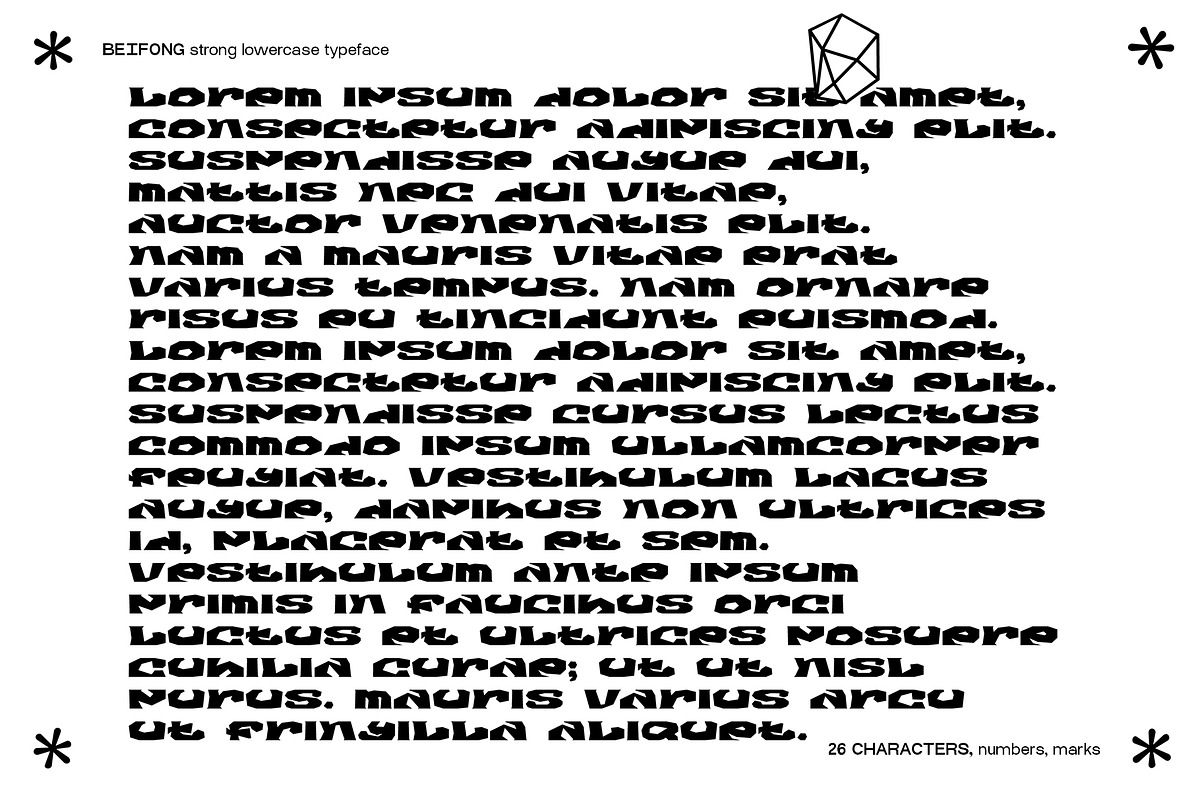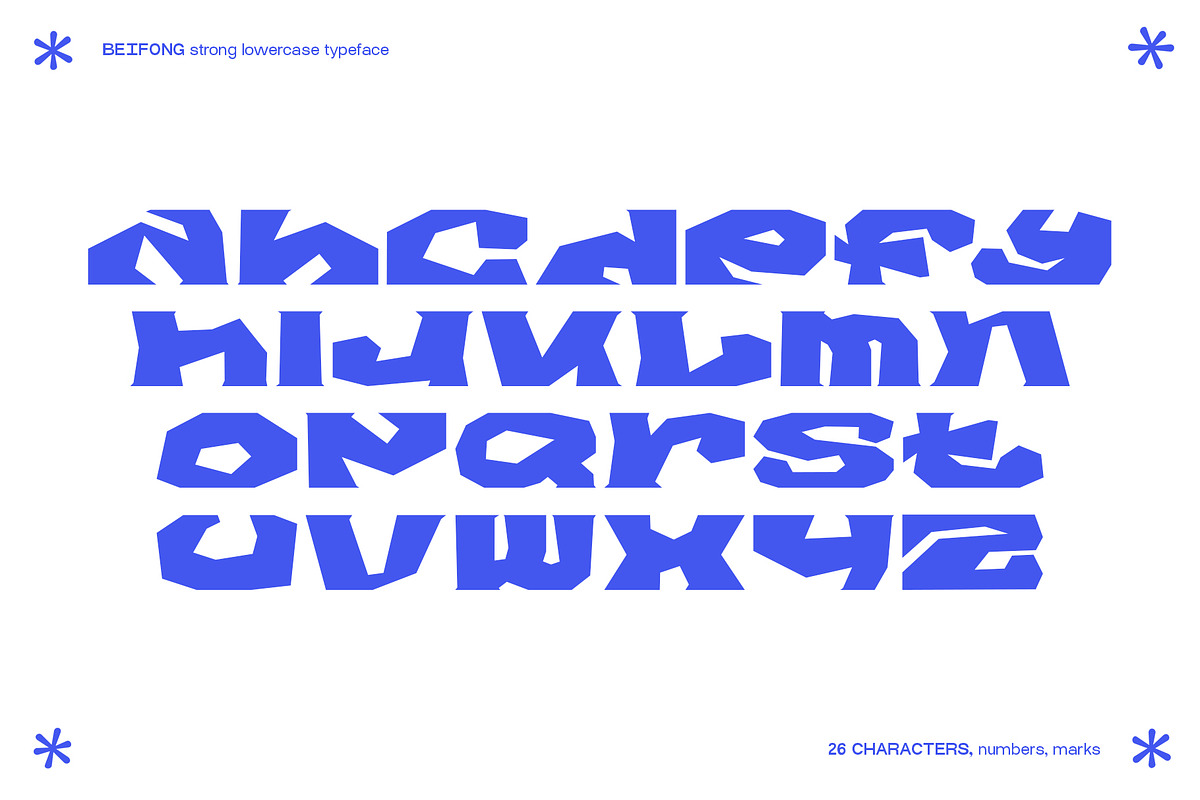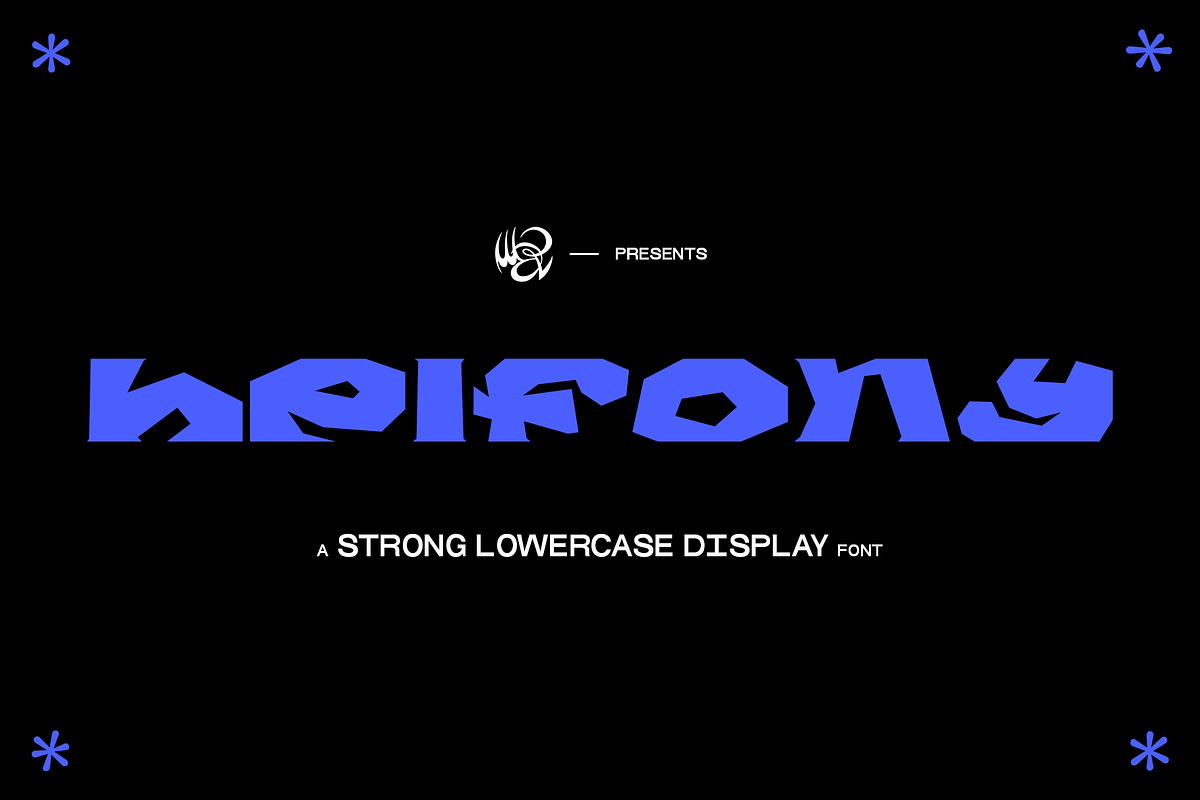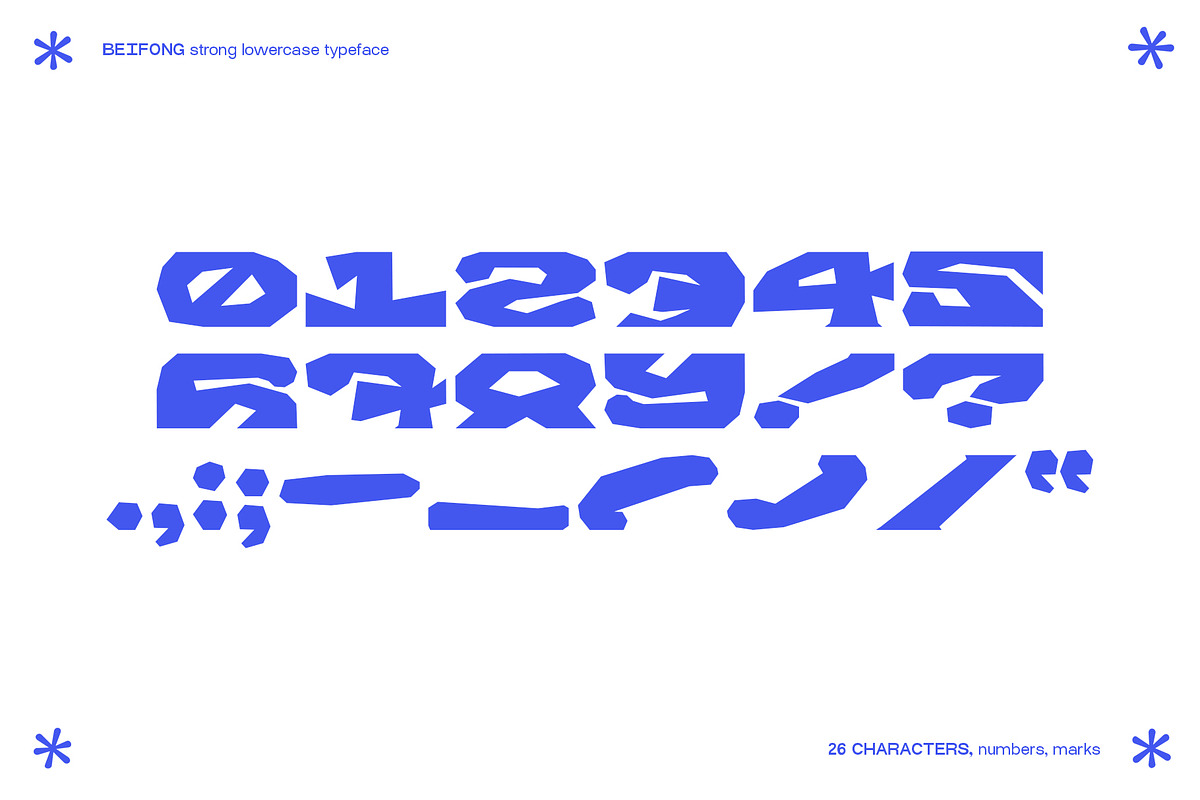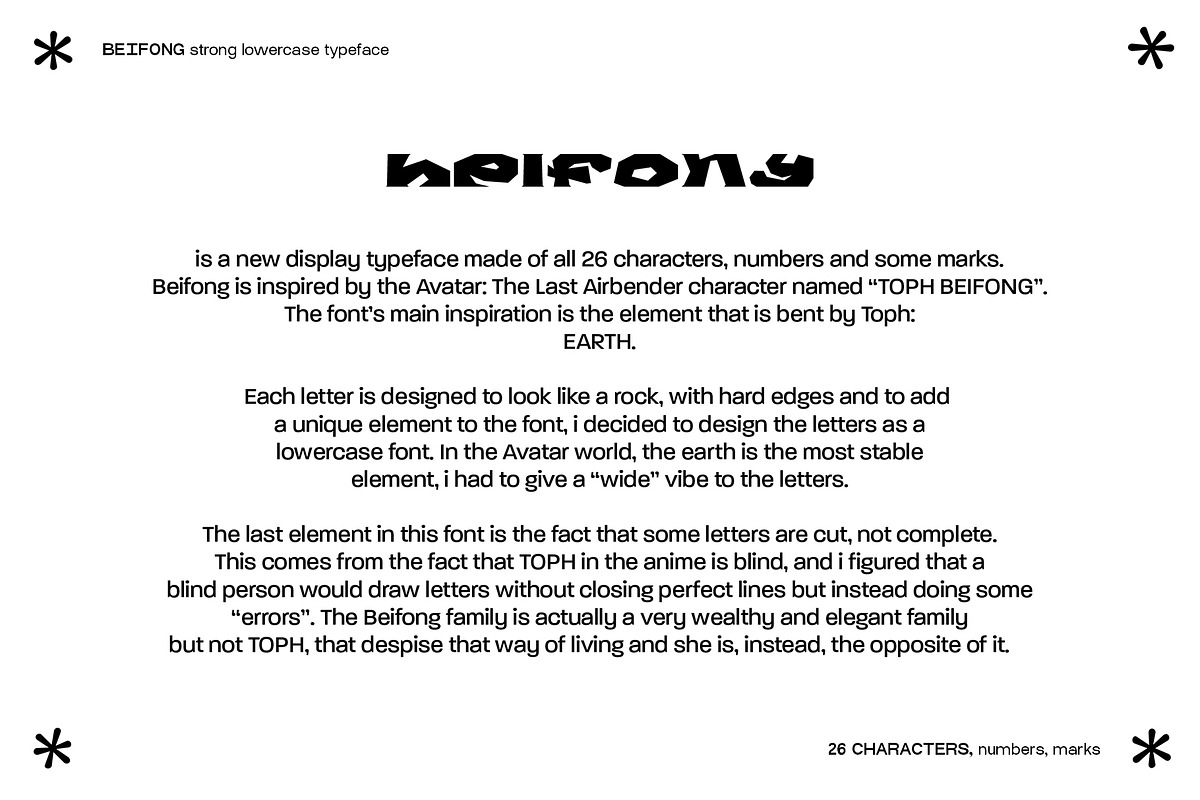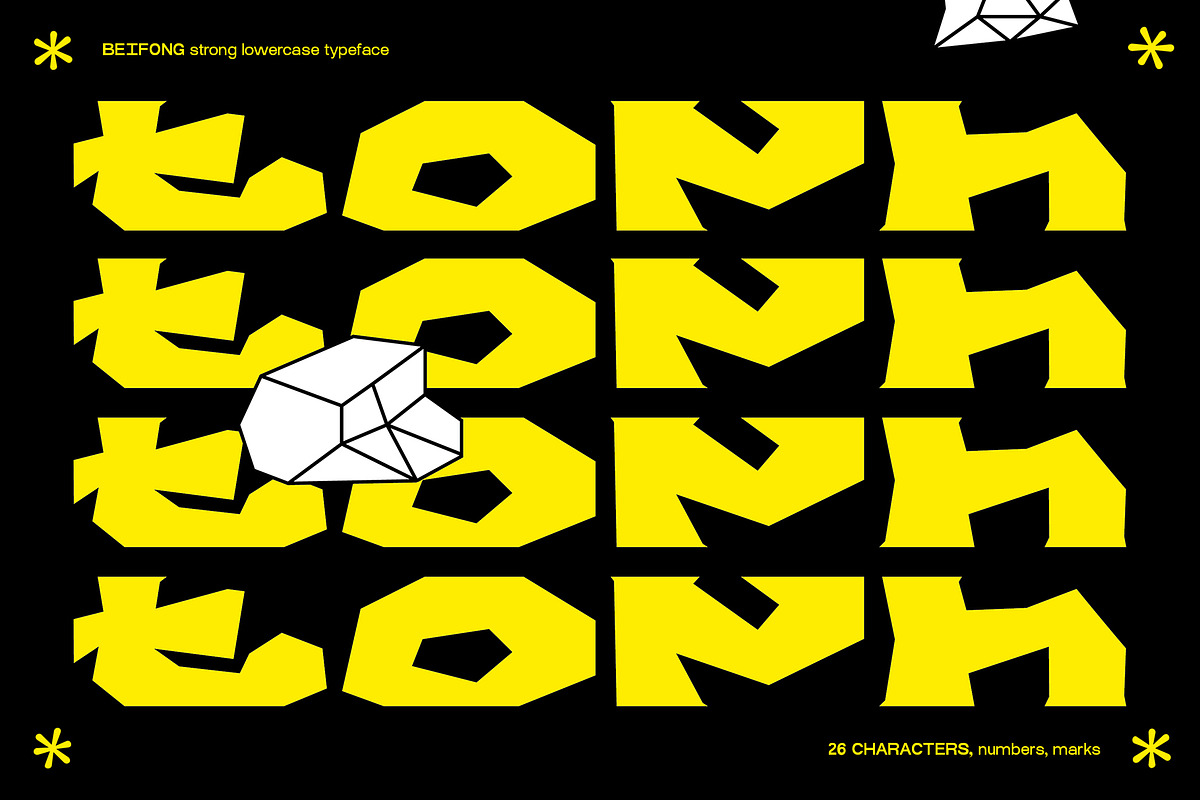
BEIFONG strong display font
BEIFONG is a new display typeface made of all 26 characters, numbers and some symbols. BEIFONG is inspired by the AVATAR: The Last Airbender character, named "Toph Beifong". The font's main inspiration is the element that is bent by Toph: EARTH. Each letter is designed to look like a rock, with hard edges and to add a unique element to the font, i decided to deign the letters as a lowercase font. In the Avatar world, the earth is the most stable element, i had to give a "wide" vibe to the letters. The last element in this font is the fact that some letters are cut, not complete. This comes from the fact that TOPH in the anime is blind, and i figured that a blind person would draw letters without closing perfect lines but instead doing some "errors". The Beifong family is actually a very wealthy and elegant family but not TOPH, that despise that way of living and she is, instead, the opposite of it.